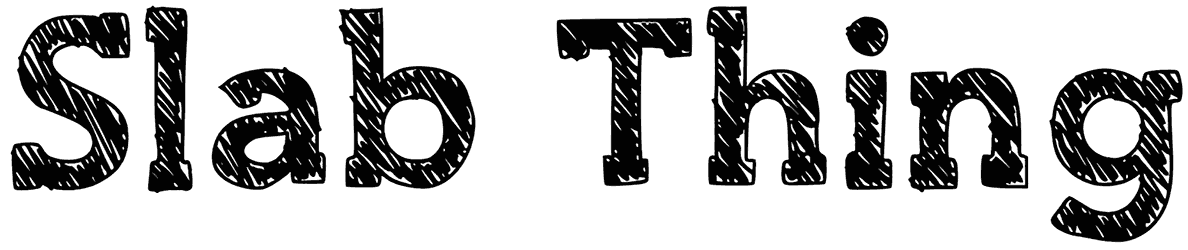
Slab Thing Font
Designed byJake Luedecke
Slab Thing is a font with a standard appearance that gives a different splash and color to sketch fonts with its texture. This sketched font can inspire the admiration of any viewer and is fun for all ages.
So if you want to stay within your safe framework and at the same time add variety to your projects, this font is for you. Slab Thing is a lovely way to bring your logos, promotional posters, and any other special projects.